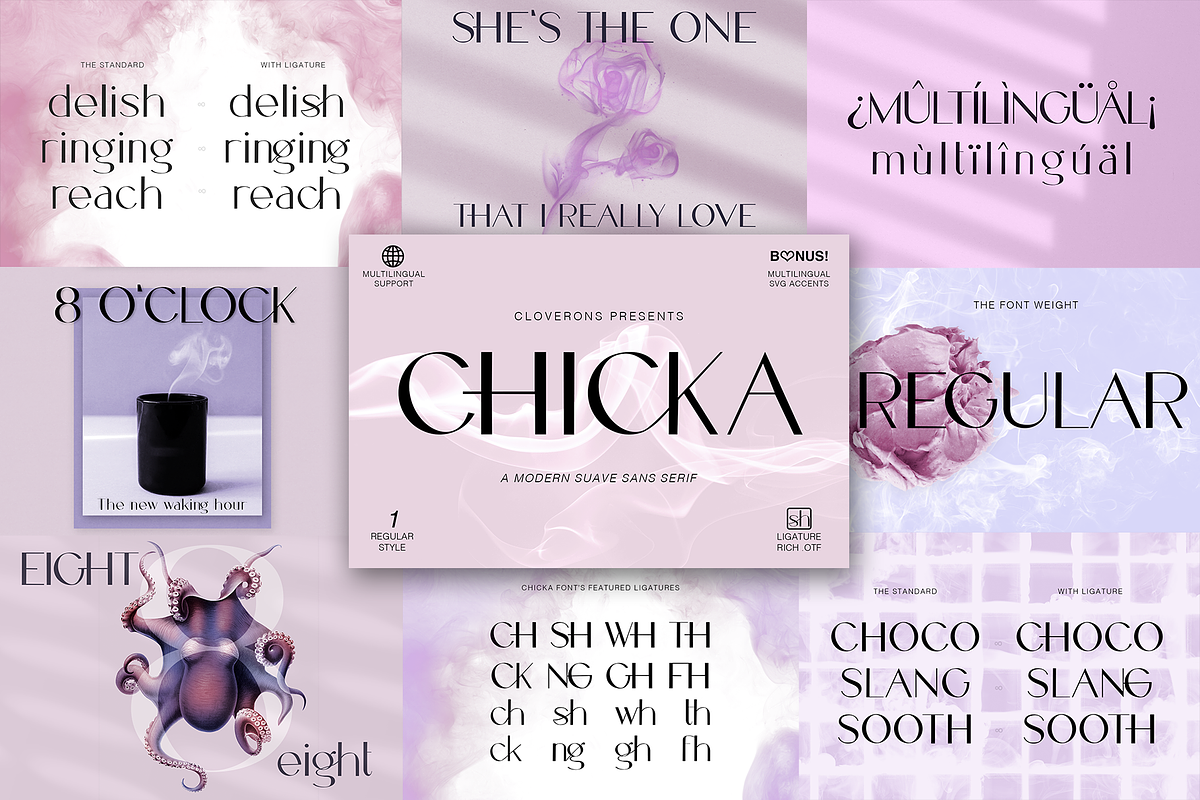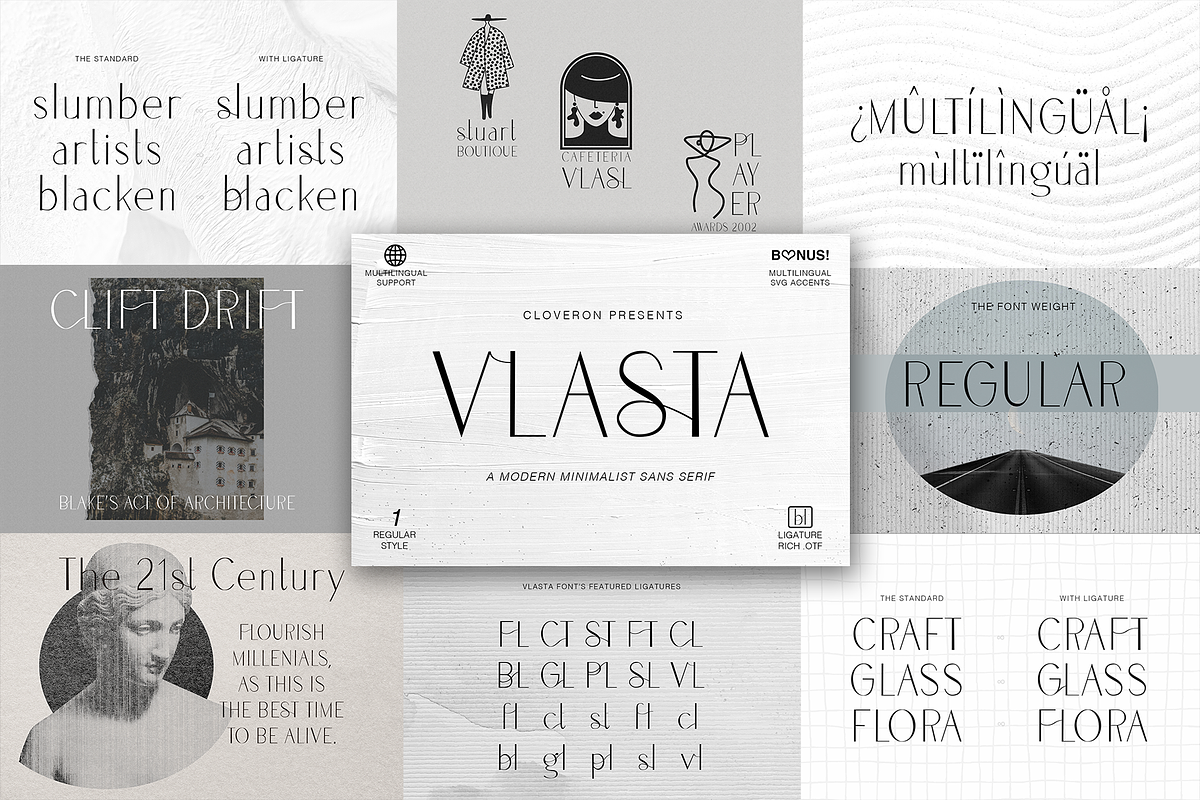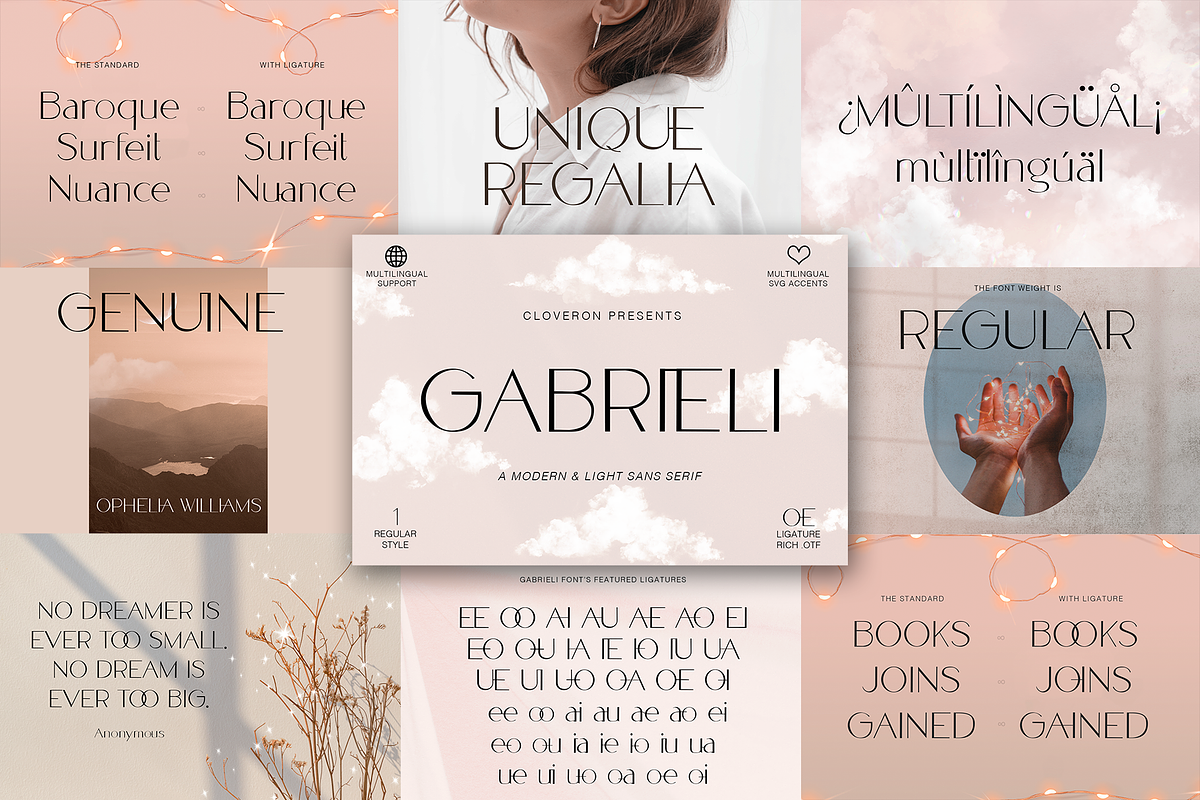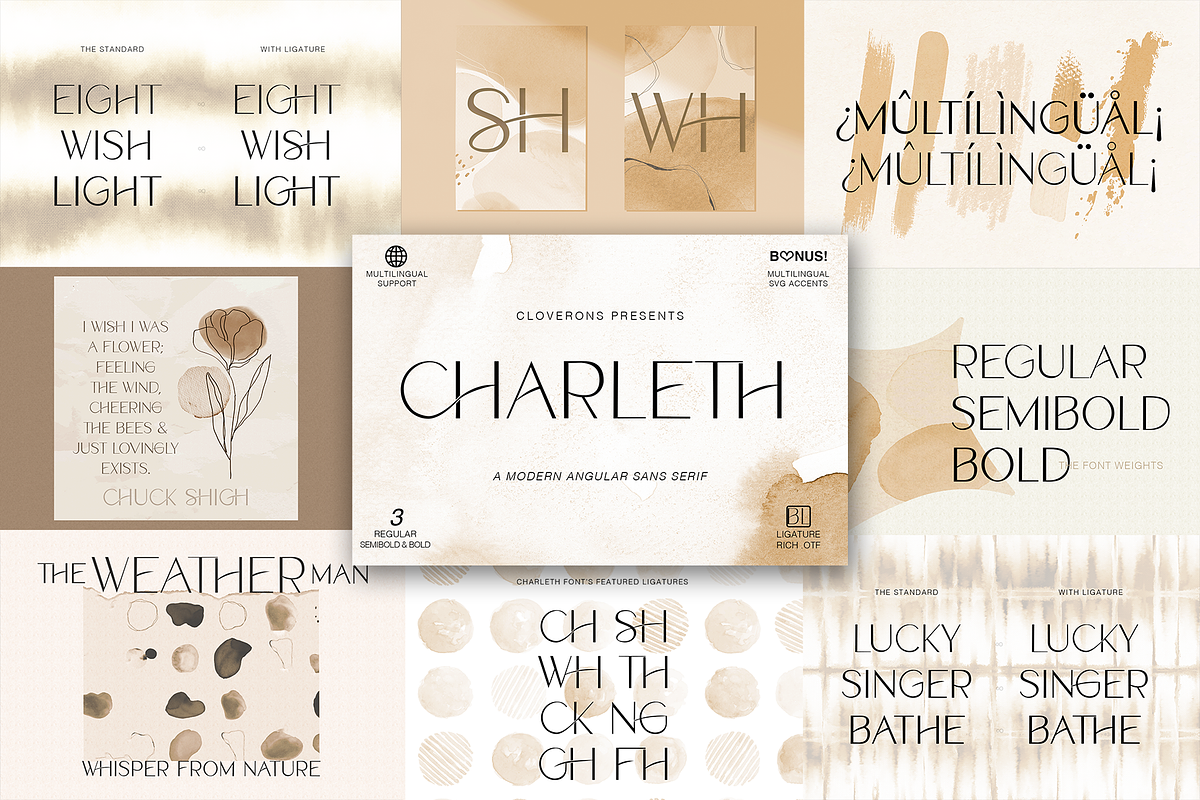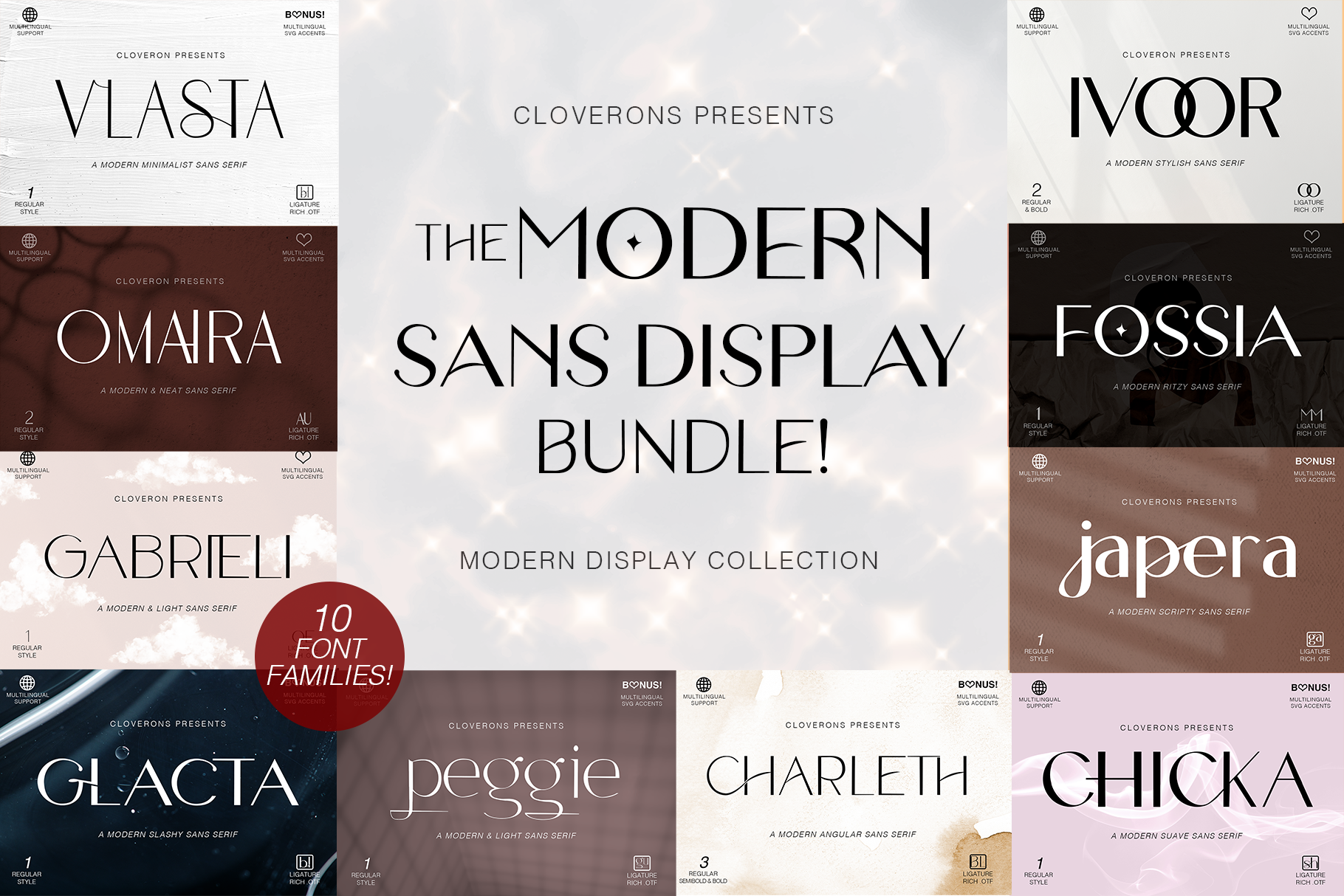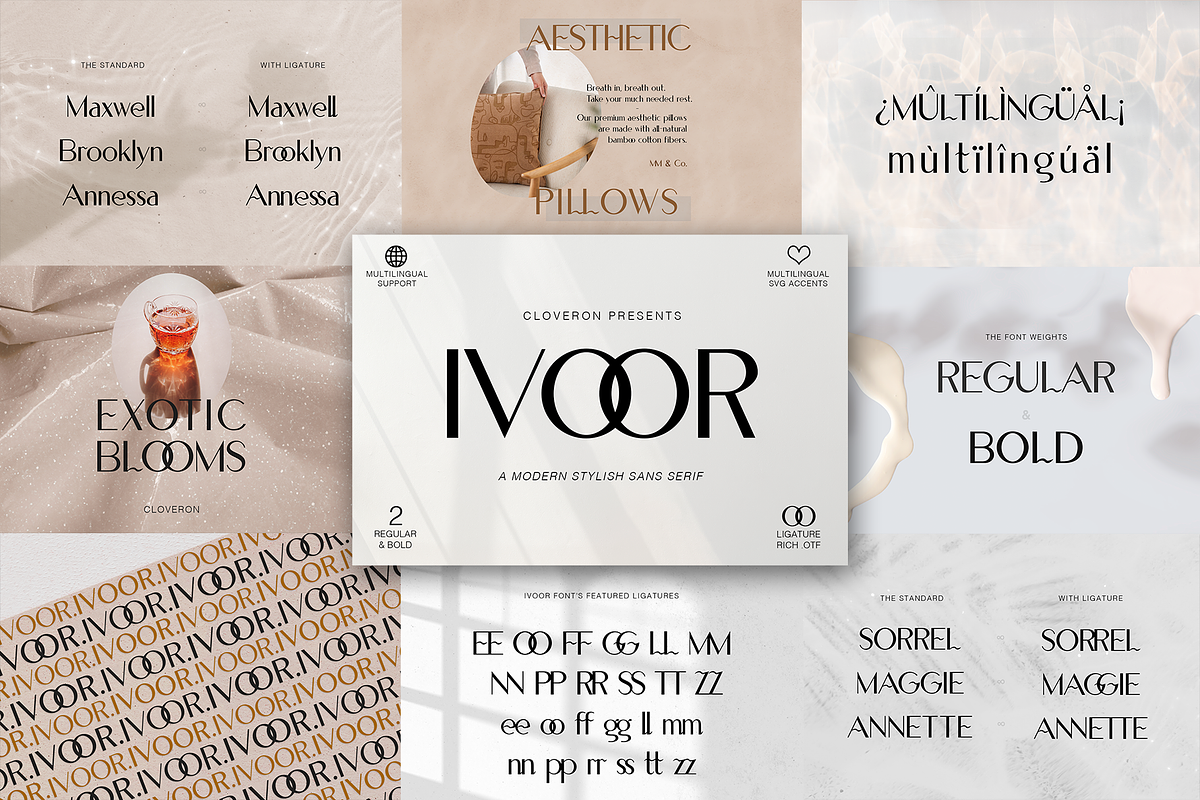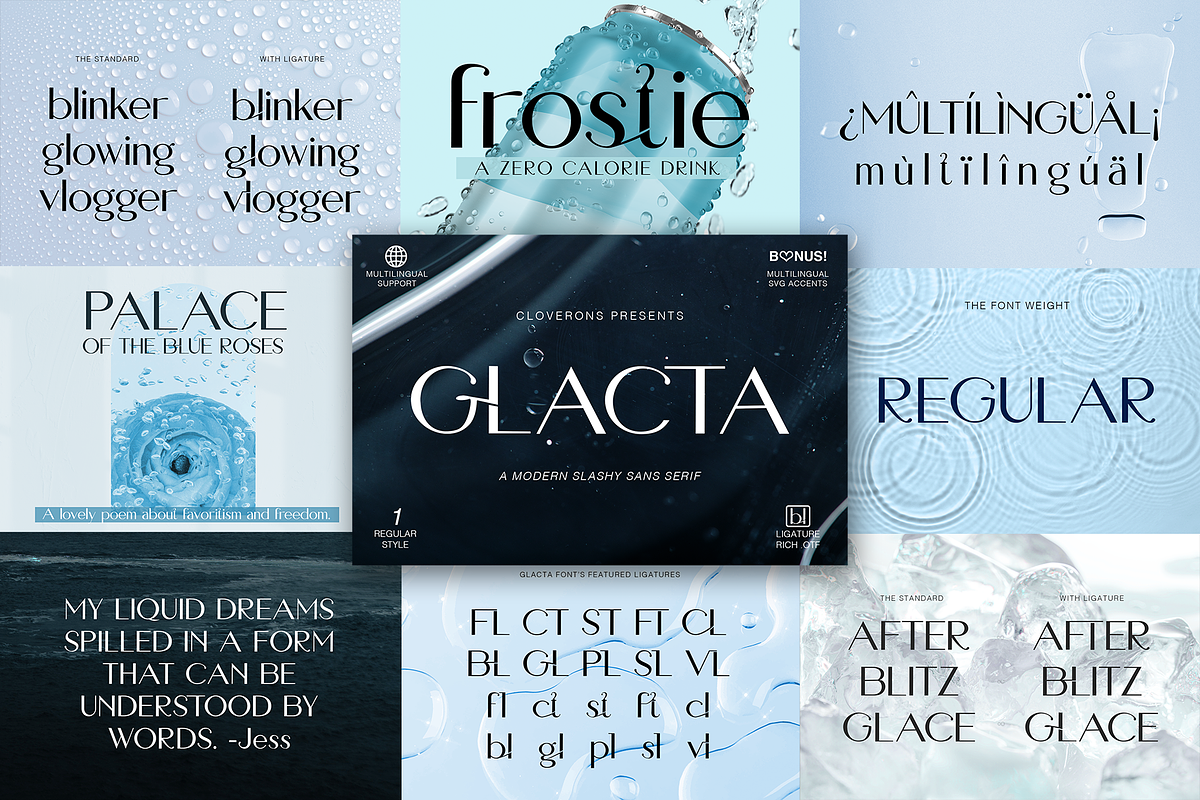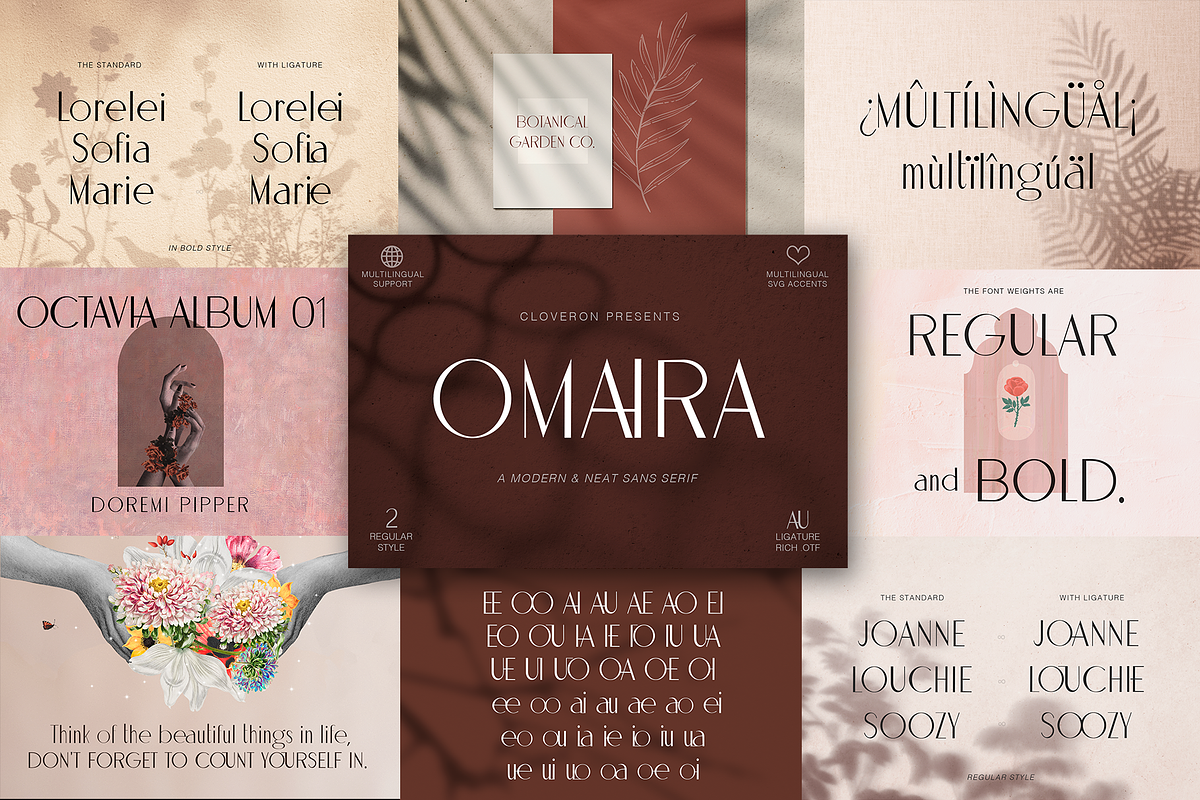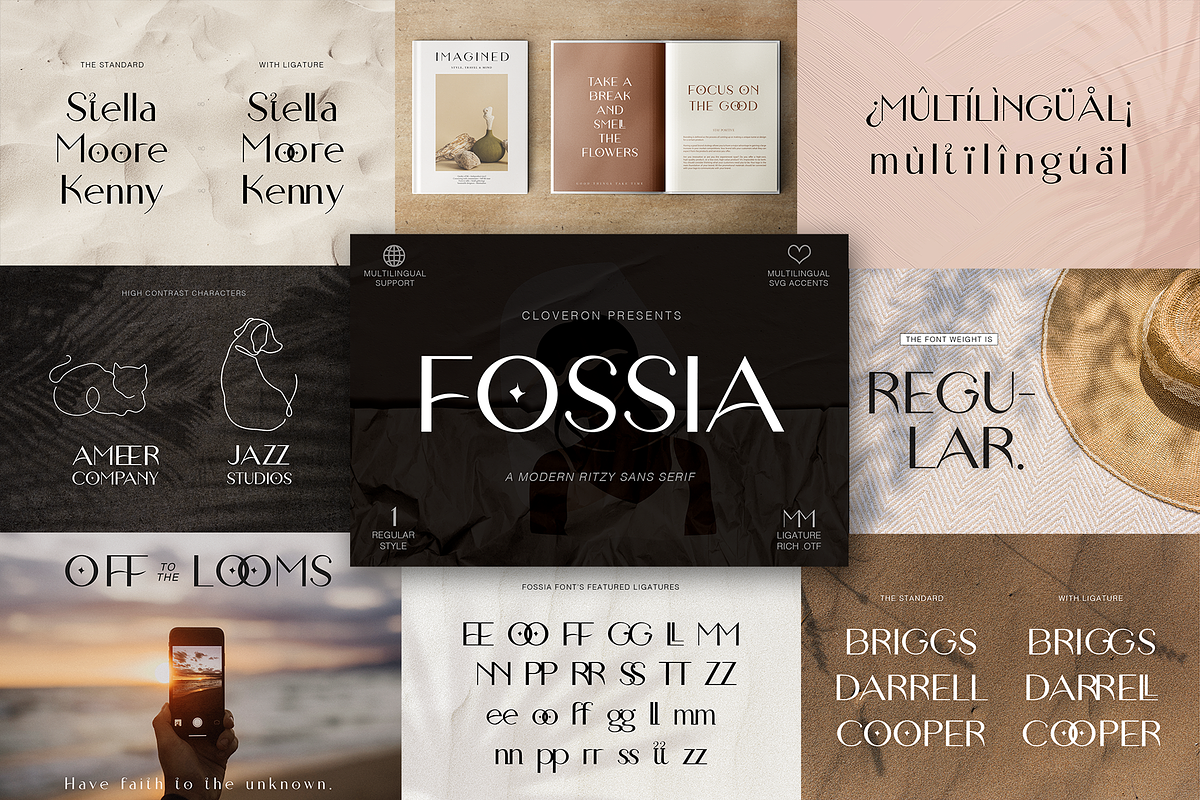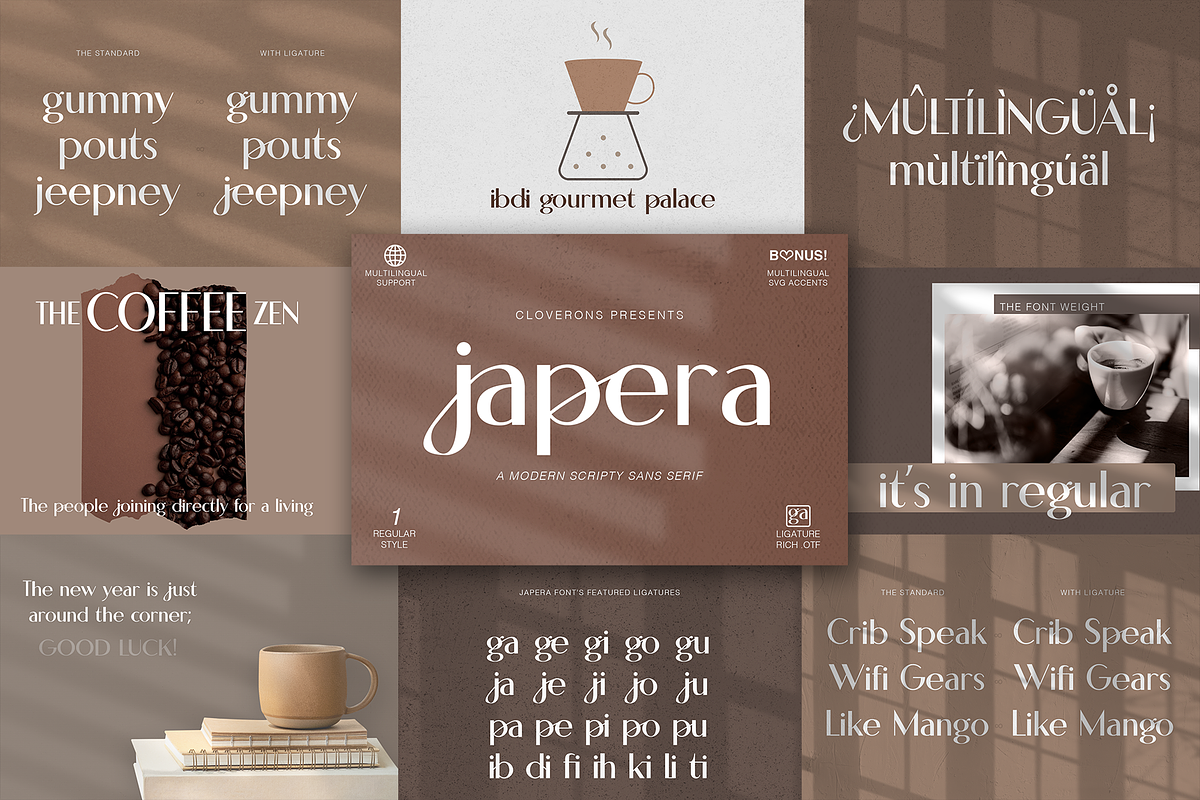
Meet the Modern Font Bundle Sans Display, a ligature-rich font bundle that is very versatile. Each font can work both as a standalone type on your graphic designs or paired with other fonts inside the collection. You'll have a variety of choices for branding projects, logos, labels, packaging, magazine headers & so much more!
Why Labeled Sans Display?
They are not optimal for reading, in 14 points and below which is the standard for a sans serif typeface; but are inspired with the sans serif modern, clean look with added feminine personality brought by their rich ligature nature. They are most optimal for Headers, logos, and big typographic elements to convey a meaning to your audience and grab their attention in a minimalistic way.
- Ligature Rich, Standard Ligature
- Multilingual Characters
- Uppercase & Lowercase (except Charleth as it is in all caps)